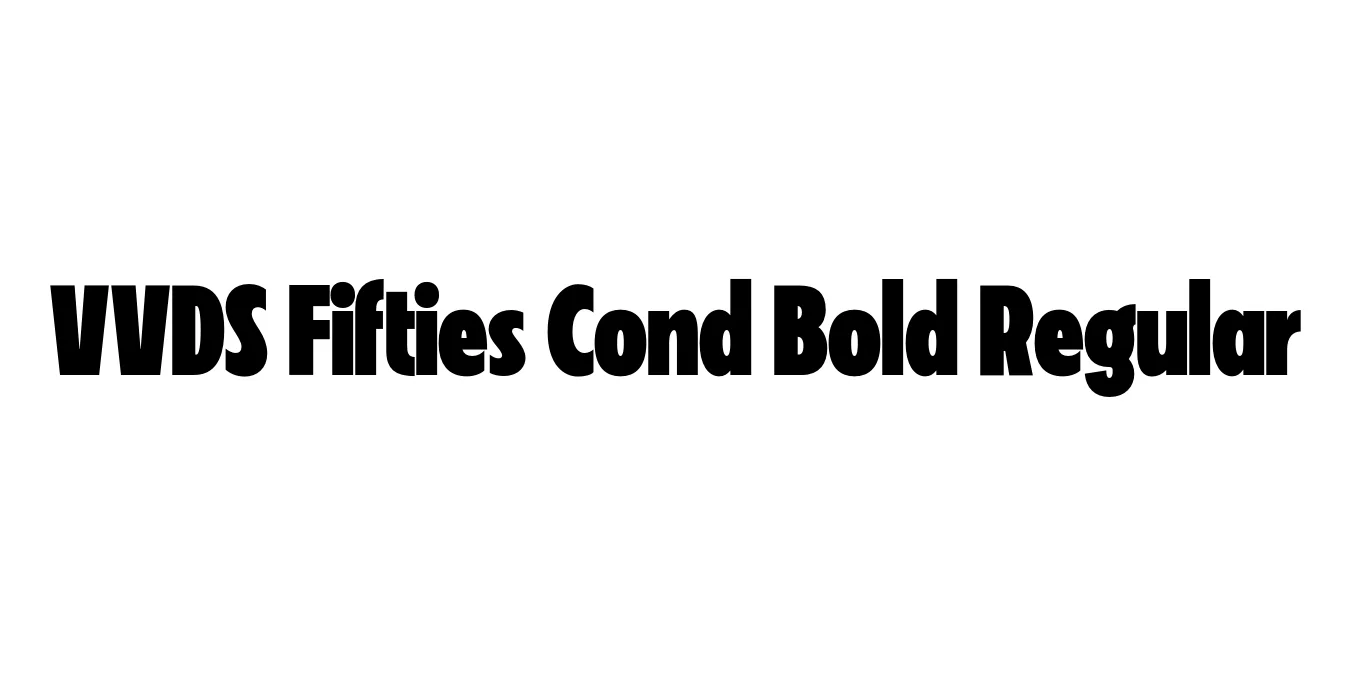
VVDS Fifties Cond Bold Regular
Designed by Pavel Korzhenko (Vintage Voyage Design Supply)
VVDS Fifties Cond Bold Regular is a core component of the Fifties typeface family, designed to capture the essence of mid-century modern aesthetics. Inspired by the high-impact advertising and cinematic title sequences of the 1950s, this condensed bold variant offers a robust, space-saving solution for designers looking to inject a vintage spirit into contemporary projects. Its narrow proportions and heavy weight create a rhythmic visual density that is both nostalgic and highly functional.
The typeface features clean, geometric lines with a distinct high-waisted structure that was characteristic of the era's sophisticated sans-serifs. By balancing retro charm with modern technical precision, VVDS Fifties Cond Bold Regular ensures excellent legibility across both print and digital mediums. It is an ideal choice for projects requiring a authoritative yet approachable voice, bridging the gap between historical design and modern utility.
VVDS Fifties Cond Bold Regular Best Uses
Perfect for striking, high-impact titles in posters and editorial layouts.
Ideal for retro-themed product branding and label designs.
Great for vintage-inspired marketing materials and social media graphics.
A strong choice for compact, bold wordmarks with a historical flair.